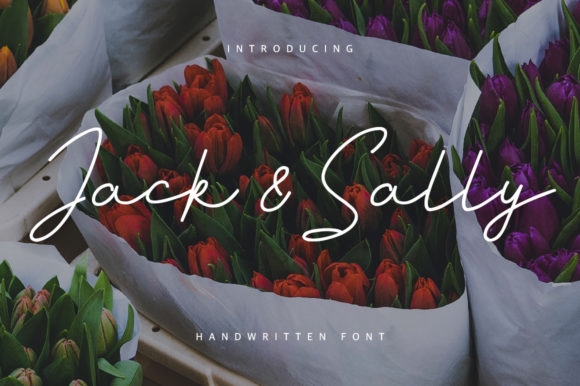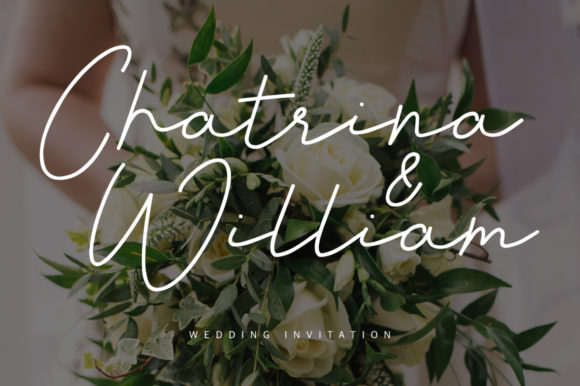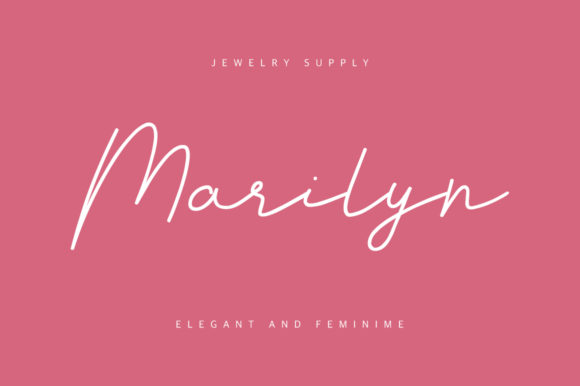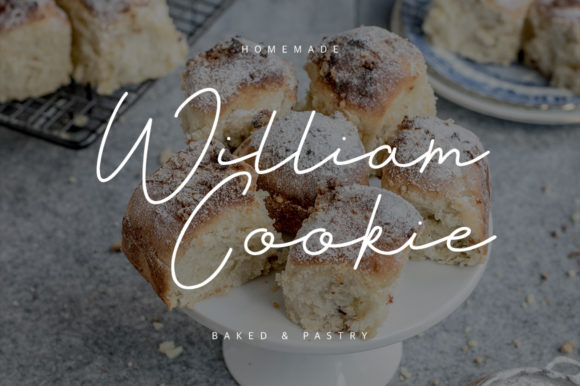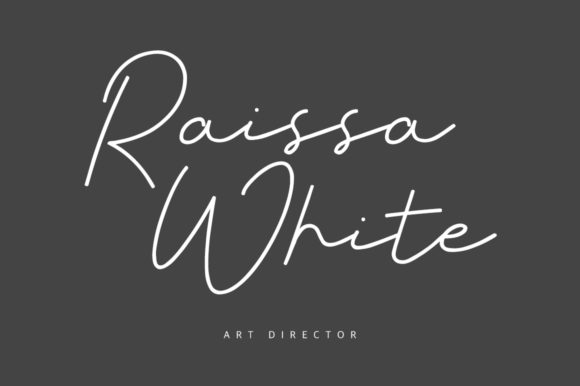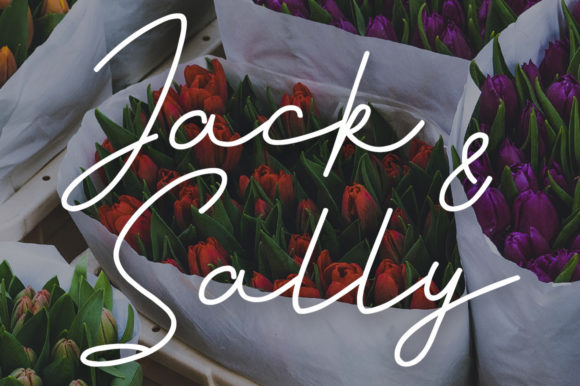
Jack and Sally Font
About Jack and Sally Font
Jack and Sally is a thin lettered, delicate handwritten font. This gentle font will look gorgeous on a variety of design ideas. It will add a joyful and romantic touch to each of your projects!